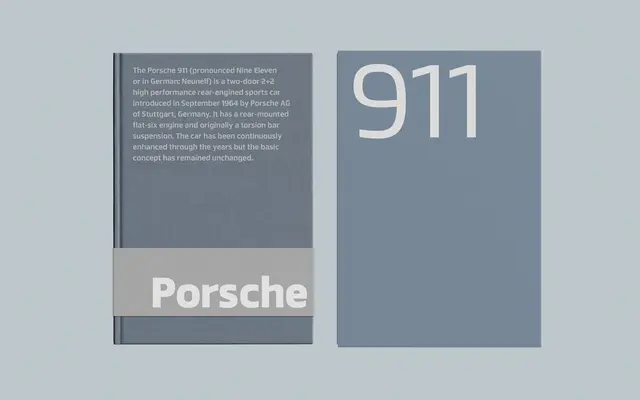
A geometric sans with a slight condensed quality and industrial roots, available in six weights with obliques and variable font support.
Remastered to version 2.0, this geometric sans draws from industrial typeface traditions with clean, unembellished letterforms and slightly condensed curves. The family covers six weights with matching obliques, over 700 characters, and a comprehensive set of OpenType features including eight numeral variants, case-sensitive forms and ligatures. Its crisp legibility makes it a practical choice for UI design, web and mobile applications.
Facto is a geometric sans with unembellished, slightly condensed letterforms drawing directly from industrial typeface traditions; its clean construction and circular forms place it firmly in the geometric grotesque camp.